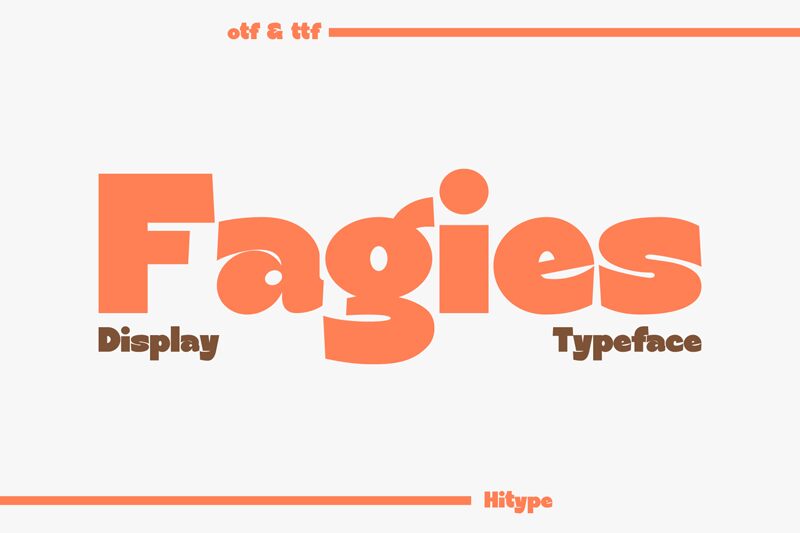
Fagies Demo Demo
Fagies, crafted by the visionary hitypestd, is a sans serif marvel that exudes modernity and boldness. With its extra-bold weight and semi-expanded width, Fagies commands attention in every design space. Its characters rise with confidence, making it an impeccable choice for projects where impact is paramount-be it striking logos, eye-catching posters, or dynamic packaging. The versatility of Fagies extends to branding endeavors, stylish invitations, and personal notes that demand a touch of distinction.
Embrace the robust charm of Fagies to elevate your creative work with a font that truly stands out from the crowd.